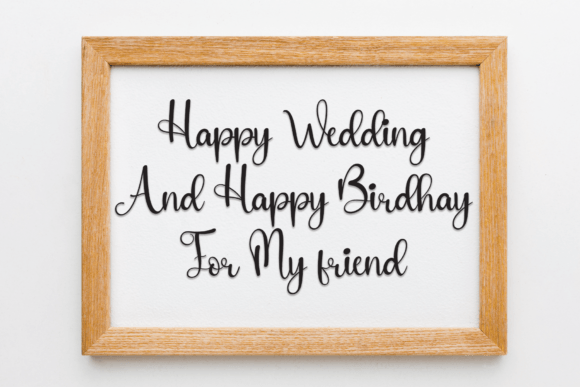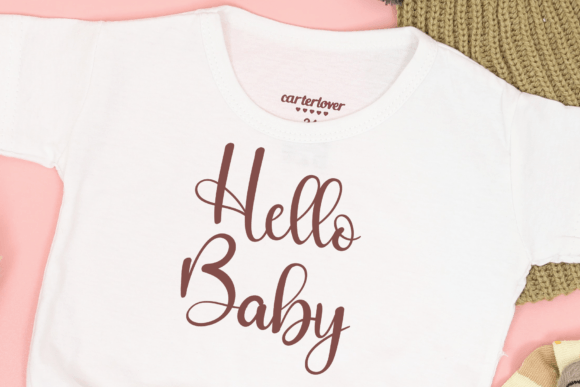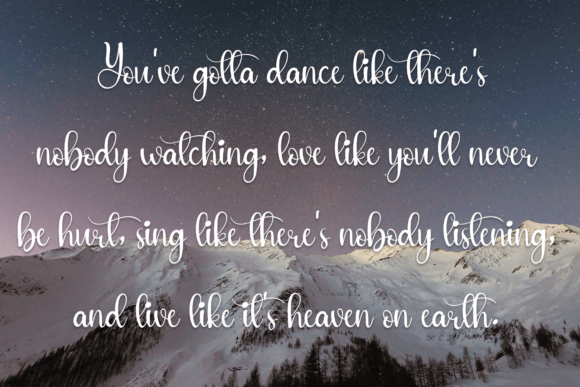
About Rabbit Font
Rabbit font is a stylish handwritten typeface designed to add a warm and personal touch to a variety of creative projects. Its unique style perfectly combines modern elegance with a casual feel, making it ideal for those who want to infuse their work with character and charm.
Perfect for Wedding Invitations and Stationery
This handwritten font brings a delicate and inviting atmosphere to wedding invitations and stationery. Rabbit font’s flowing strokes give your designs a romantic and heartfelt appearance, making special moments even more memorable.
Enhance Your Branding and Social Media
Rabbitfont is a great choice for branding projects and social media content. It offers a handcrafted look that helps your brand stand out by conveying authenticity and creativity. Use it to design logos, advertisements, and posts that truly connect with your audience.
Ideal for Product Packaging and Labels
Product packaging benefits from the charming style of Rabbit font. Its elegant yet approachable letterforms make labels and packaging designs feel more personal and attractive. This adds value to products and appeals to customers seeking quality and uniqueness.
Versatile for Various Creative Applications
Beyond invitations and branding, Rabbitfont works wonderfully for photography watermarks, posters, and wall displays. Its flexibility allows it to enhance a wide range of designs, making it a valuable addition to any designer’s font collection.
Why Choose Rabbit Font?
Choosing Rabbitfont means choosing a blend of style, warmth, and versatility. Its elegant handwritten style elevates your projects, whether formal or casual, and ensures your designs leave a lasting impression. Incorporate Rabbitfont into your work to add a touch of personality and sophistication.